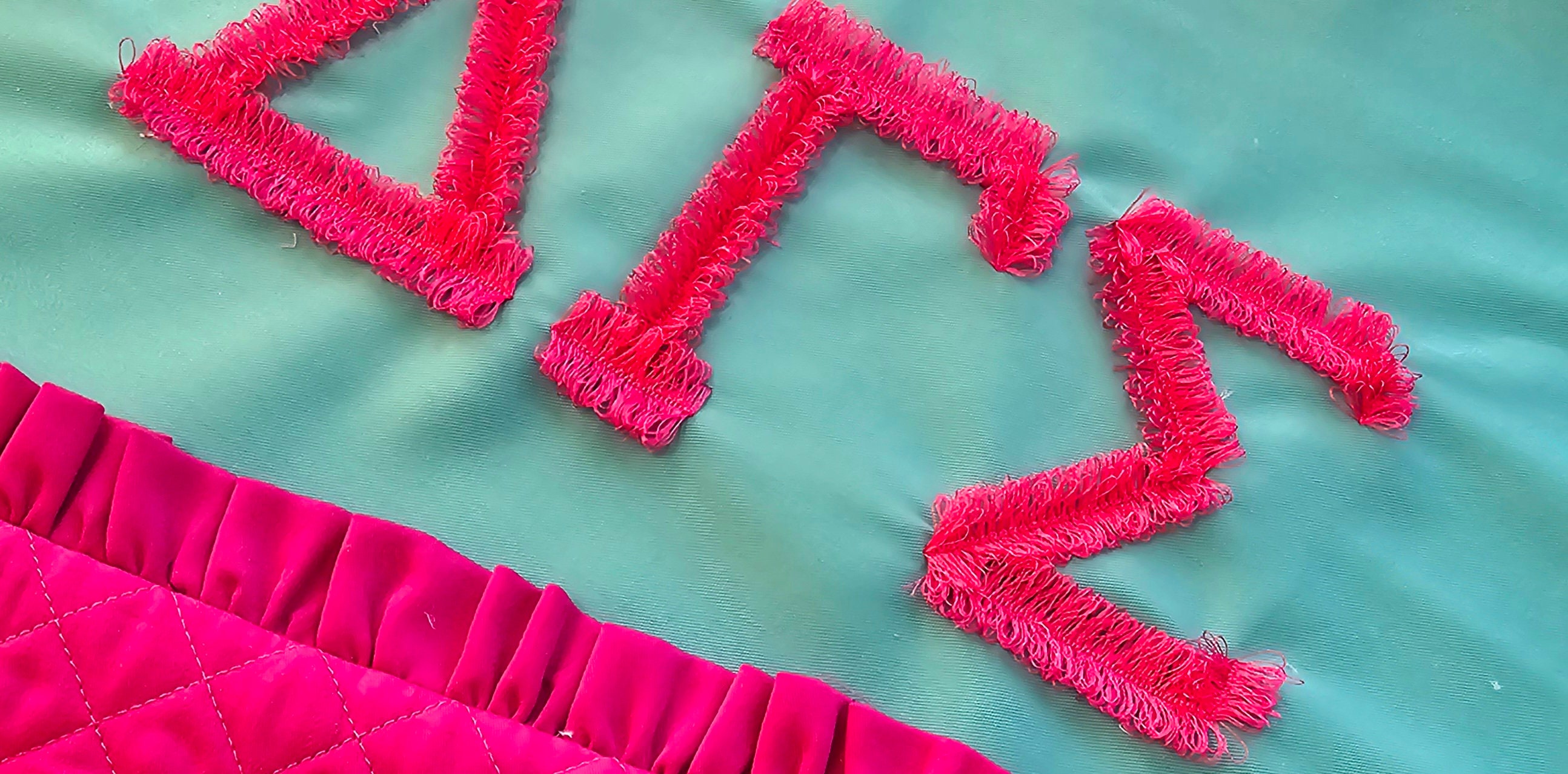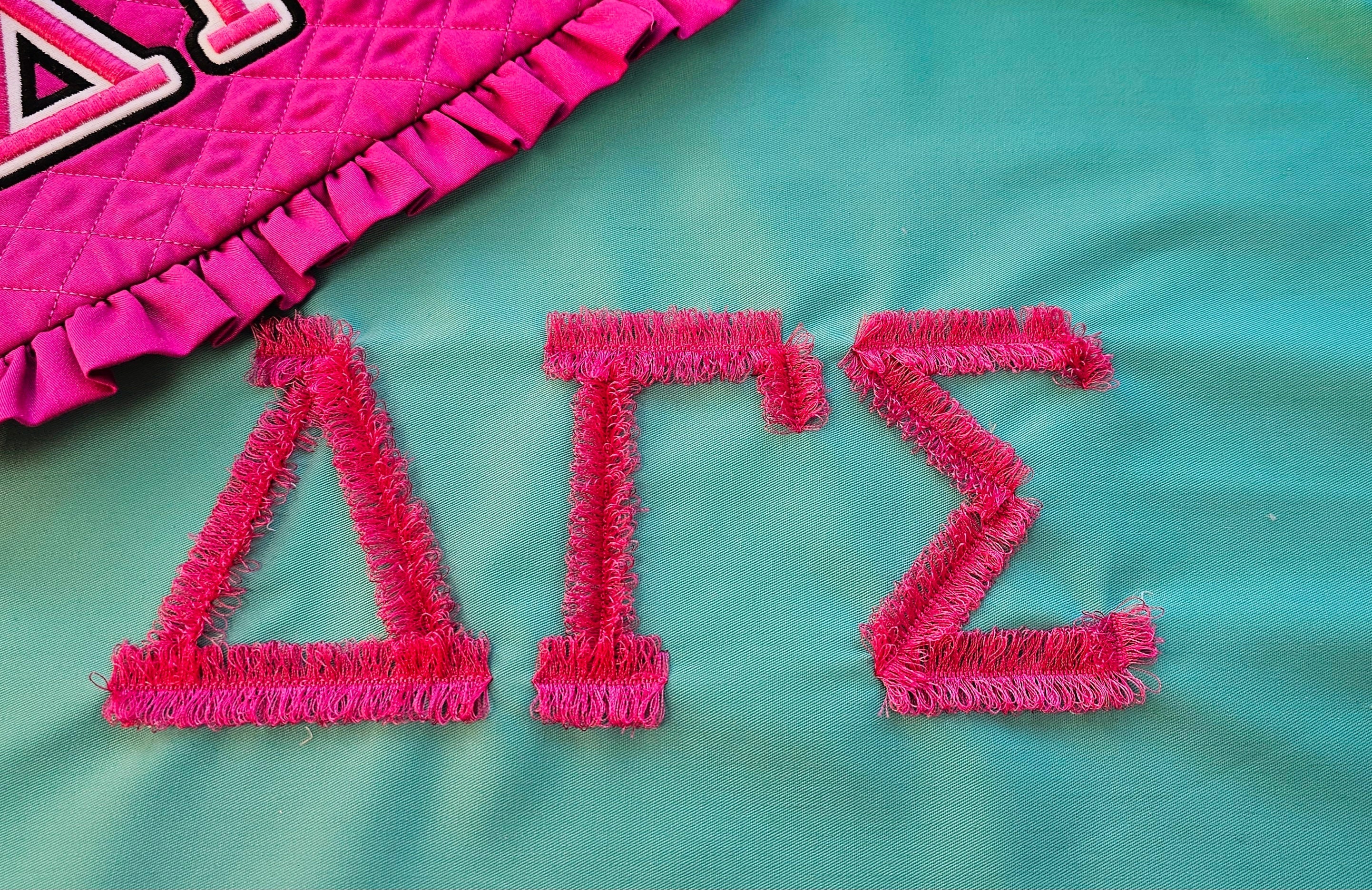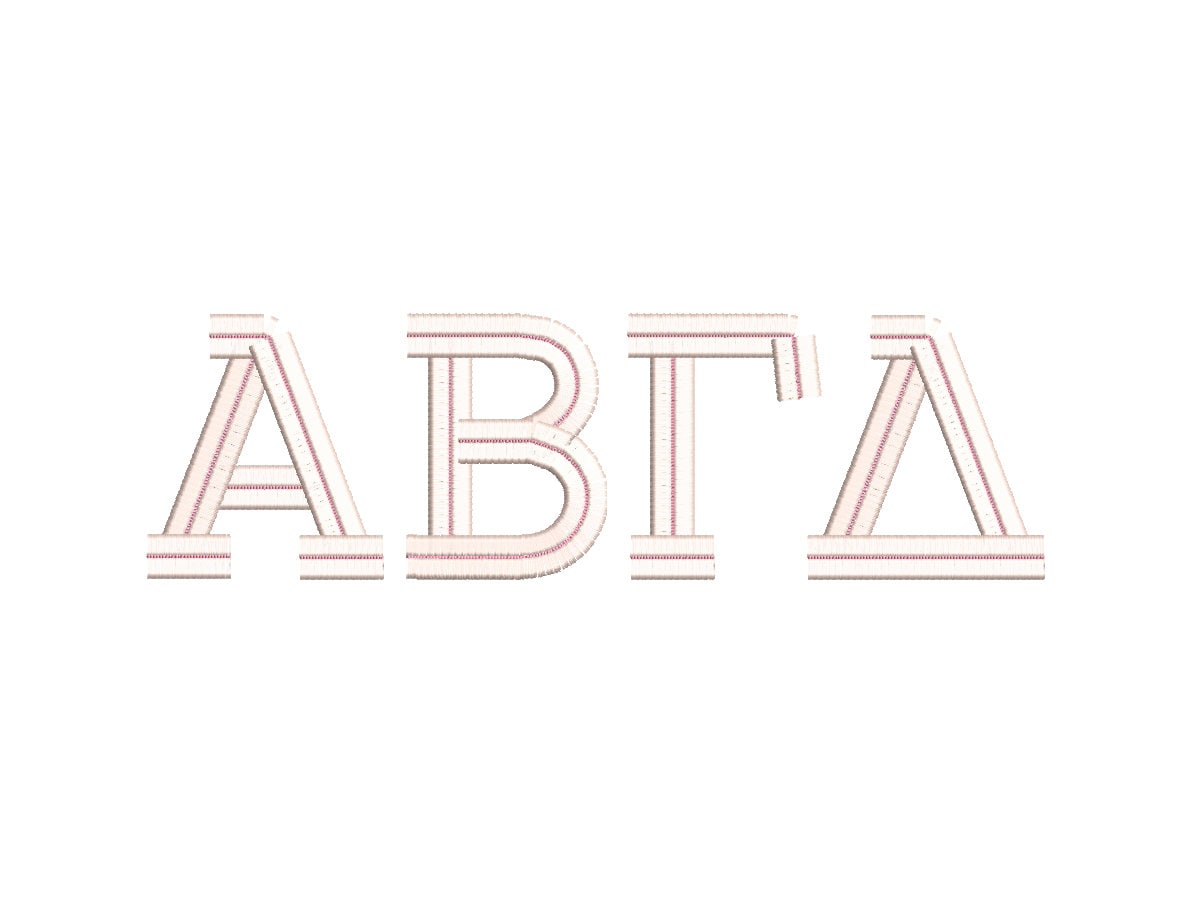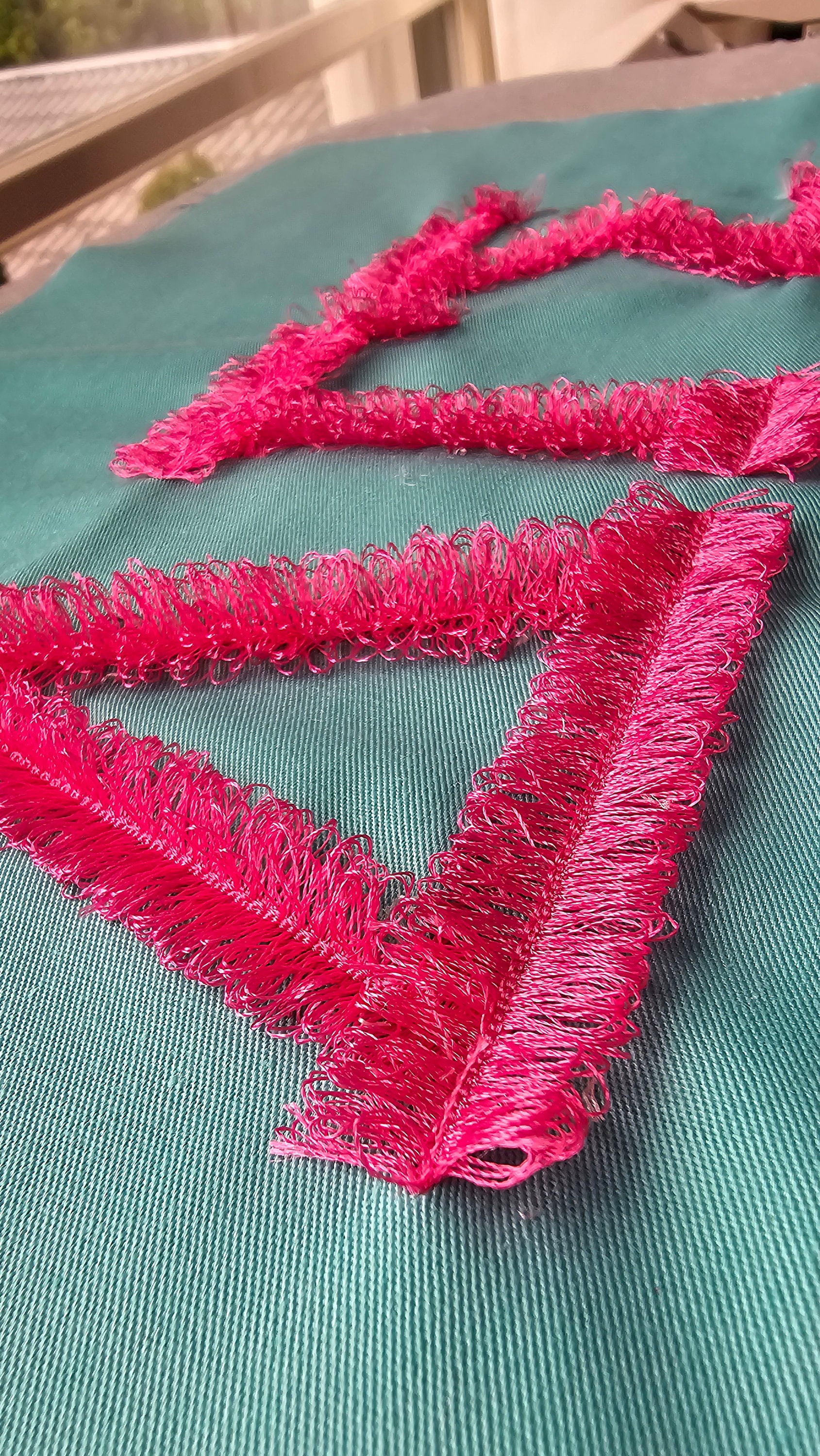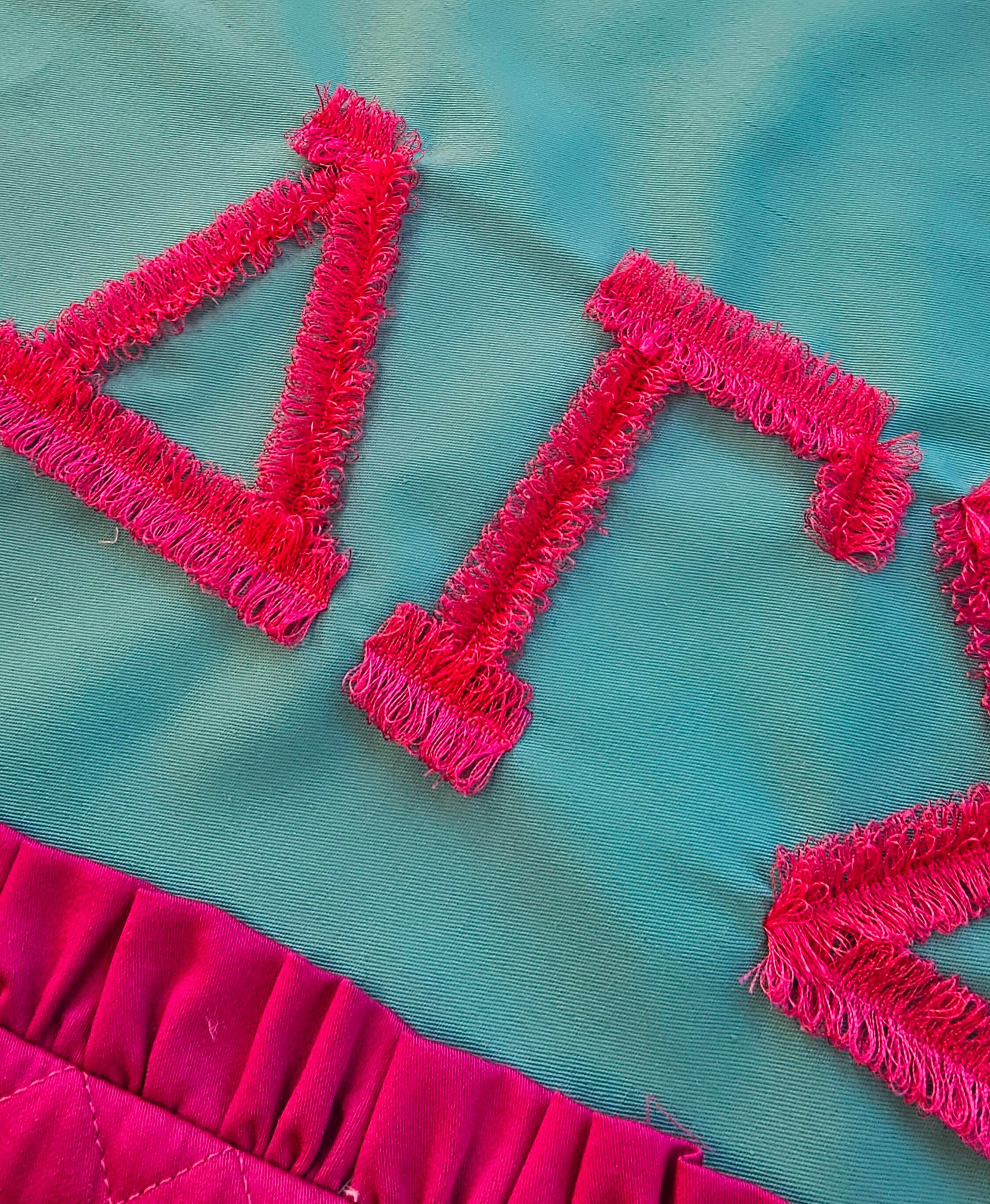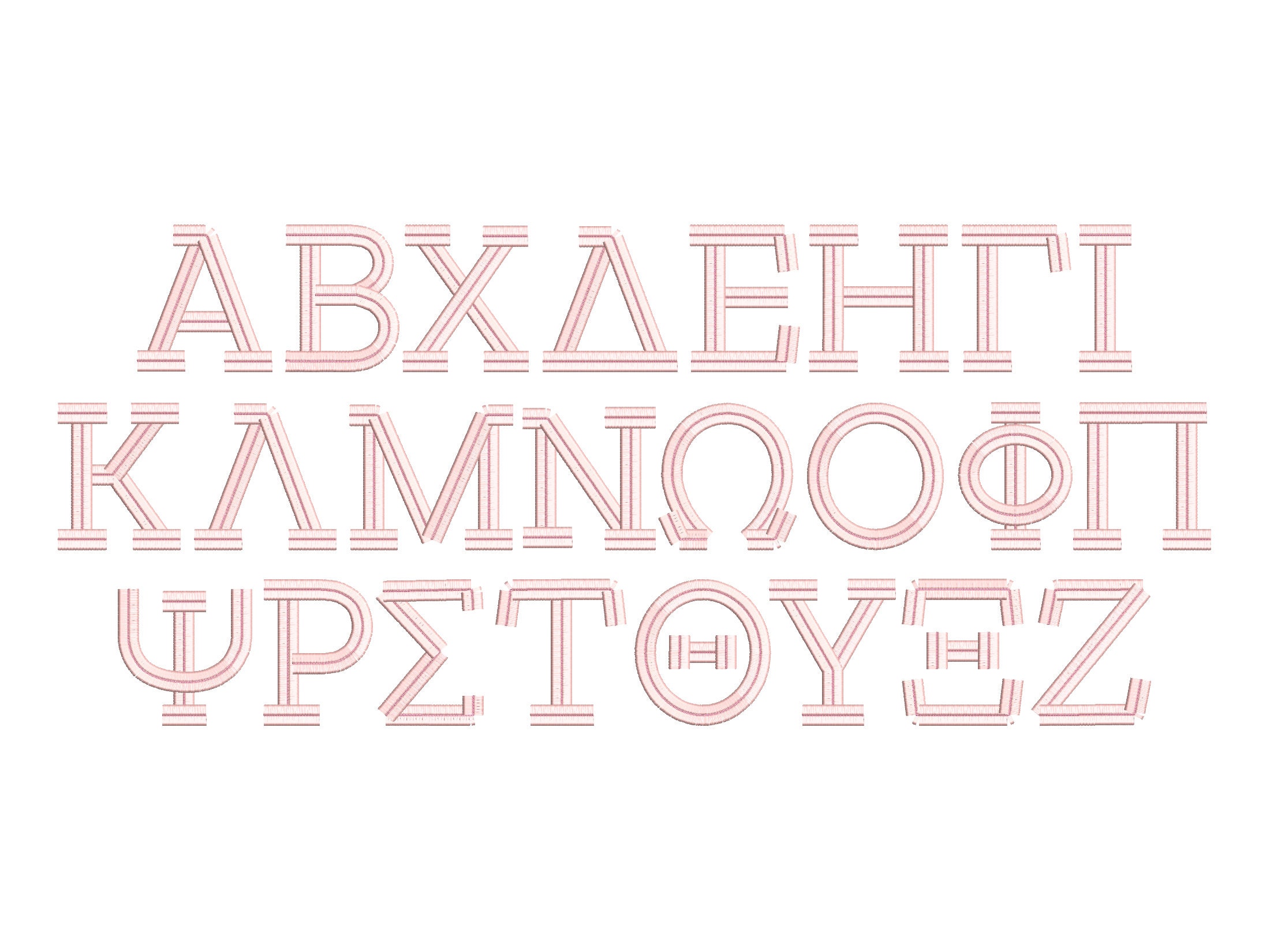
Greek Alphabet Fringed FONT fluffy fur chenille letters machine embroidery designs assorted big sizes from 3 up to 5 inches, BX included
Entire alphabet uppercase letters.
Add a luxurious touch to your creations with our Greek Alphabet Fringed FONT embroidery designs! Each letter is meticulously crafted with fluffy, fur-like chenille, perfect for adding depth and texture to your projects. This set includes assorted sizes ranging from 3 to 5 inches, suitable for a variety of uses. Comes with BX format for easy use. Elevate your embroidery with these elegant, tactile letters!
It is easy. Embroider the design as usual. Large satin stitches will be loose. Once you complete stitching the design, turn over your hoop to see a reverse side, and cut the bobbin thread, along the large satin stitches. Turn the hoop back over and fluff up the "fringe" around. Please view the last image on how-to. Also, please view the video tutorial of my other fringed project, but the technique is the same: